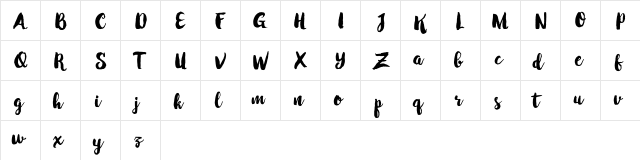
Winter Brush Demo Regular
| Foundry | Barland |
| Designer | Barmawy Muchtar |
Design Context for Winter Brush Demo Typeface
Winter Brush Demo brings a calligraphic fluidity to the page — its connecting strokes and expressive curves give it an unmistakably human quality.
Font Pairing: Combine Winter Brush Demo with a simple geometric sans for maximum contrast — the tension between flowing curves and clean structure is a classic typographic pairing.
Pro Tip: Use Winter Brush Demo for short runs of text — names, titles, or taglines. Extended body copy in script faces tires the eye quickly.